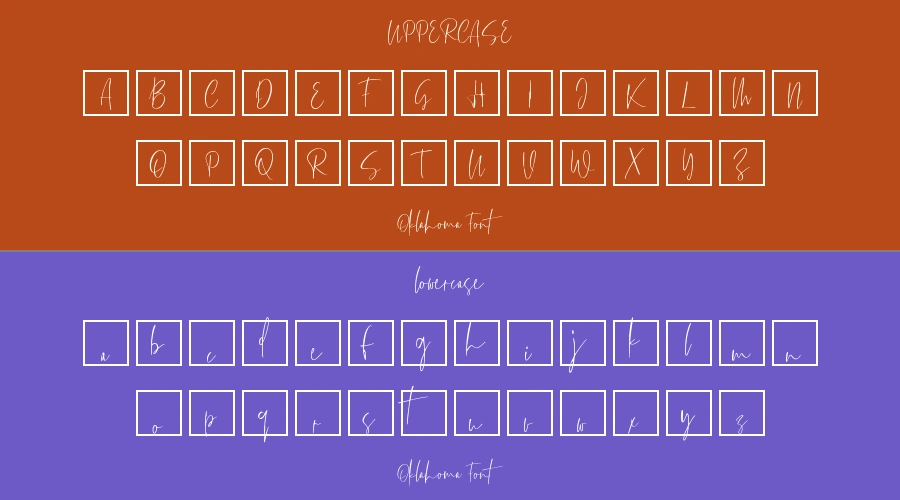
About Oklahoma Font
Designed with precision, Oklahoma Font merges consistent strokes with visual comfort in every character. This versatility makes it particularly effective for merchandise graphics, where accuracy and brand alignment directly impact communication quality. Each letterform demonstrates meticulous craftsmanship.
Technical excellence shines through elements like transitional forms and period-specific forms, enhancing typographic versatility. In image captions settings, Oklahoma Font proves its worth through superior reproduction fidelity. The thoughtful execution of crossbar height and emotional resonance ensures professional results.
Oklahoma Font |